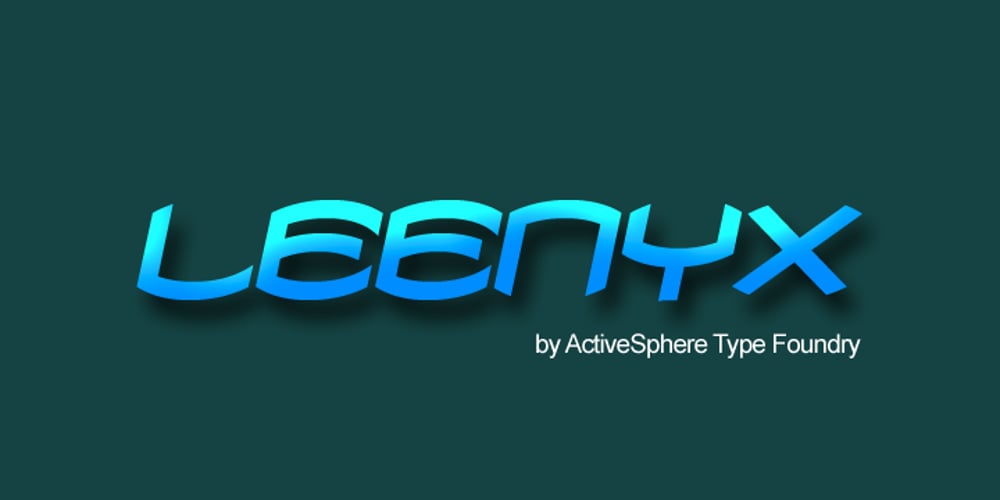
Leenyx Font Family was designed by Ronnie Dela Cruz and published by ActiveSphere. Leenyx contains 8 styles and family package options. Leenyx is a geometric display font family and works best in display applications, such as posters, signage, logos and label. The Leenyx family comes in 2 versions: Leenyx AX and Leenyx BX. Leenyx AX has lines of even width and no serifs. Leenyx BX has lines of even width with slight curve on the ends of the strokes. Each Leenyx font version has two weights: regular and bold, each available in italic, making a total of eight styles for. Each style has a full upper and lower-case, accents, punctuation and a selection of monetary symbols.